From working on worksheets, kids graphics, party invites, playful branding, and social content, I have learned that fonts do more than add style. They help grab attention, shape first impressions, and make designs feel more alive. A bold heading can stop scrolling. A clean friendly font can make learning material more engaging. That is why this guide focuses on playful fonts in Canva that help real users create fun, clear, and effective designs faster.
Quick Answer
The best playful fonts in Canva are Lilita One, Raily, Le Petit Cochon, Handyman, More Sugar, Balabeloo, Finger Paint, and Bryndan Write. These fonts work well for worksheets, birthday invites, social posts, logos, party graphics, and fun branding.
What Makes a Font Playful?
A strong playful font should:
- Look fun and friendly
- Stay easy to read
- Have clear spacing
- Add energy to the design
- Fit creative projects
If a font feels messy or confusing, it is not the right choice.
Best Playful Fonts in Canva
| Font Name | Best For | Style | Availability |
| Lilita One | Social Posts | Bold Fun | Free |
| Raily | Cute Designs | Soft Playful | Free |
| Le Petit Cochon | Kids Designs | Cartoon Style | Free |
| Handyman | Worksheets | Friendly Bold | Free |
| More Sugar | Invitations | Cute Script | Free |
| Balabeloo | Kids Graphics | Fun Display | Free |
| Finger Paint | Kids Content | Handwritten | Free |
| Bryndan Write | Notes, Teachers | Casual Handwritten | Free |
| Premium Canva Fonts | Unique Styles | Varies | Canva Pro / Paid |
Best Fonts by Use Case
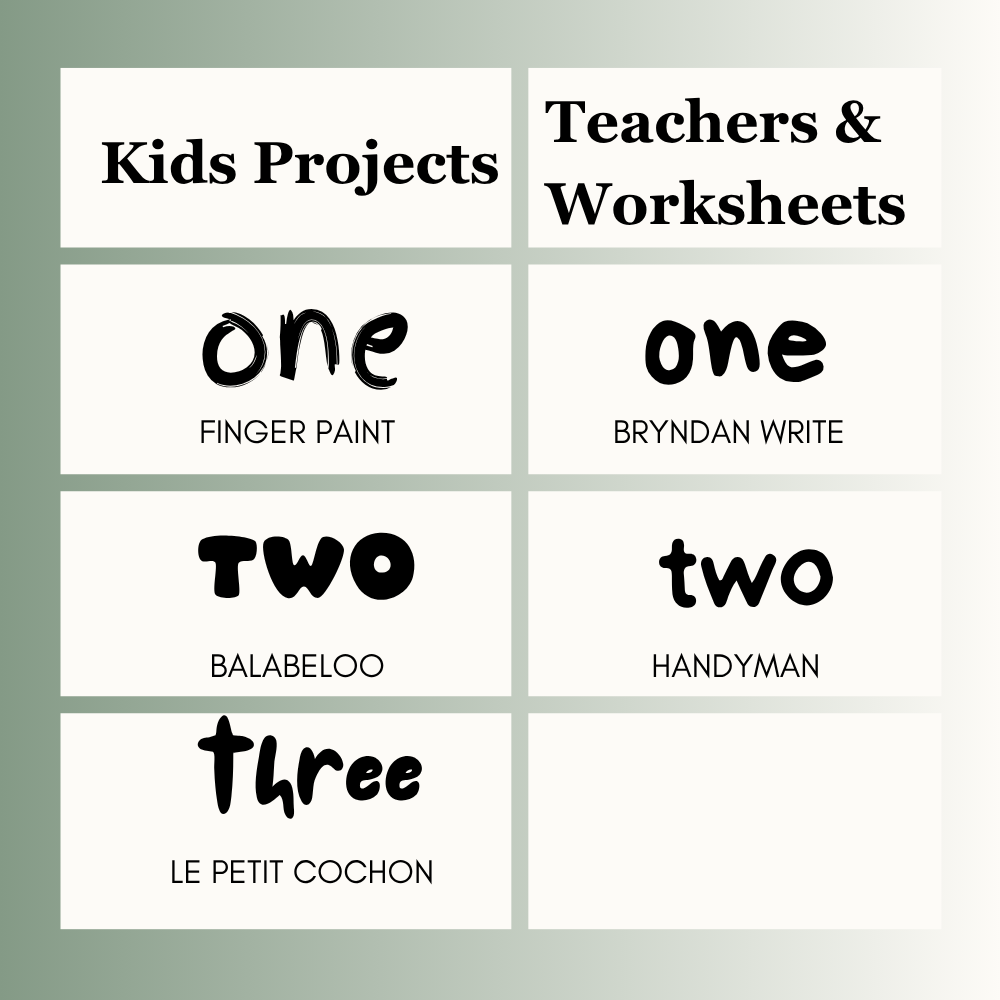
Kids Projects
- Finger Paint
- Balabeloo
- Le Petit Cochon
Teachers & Worksheets
- Bryndan Write
- Handyman
- Raily
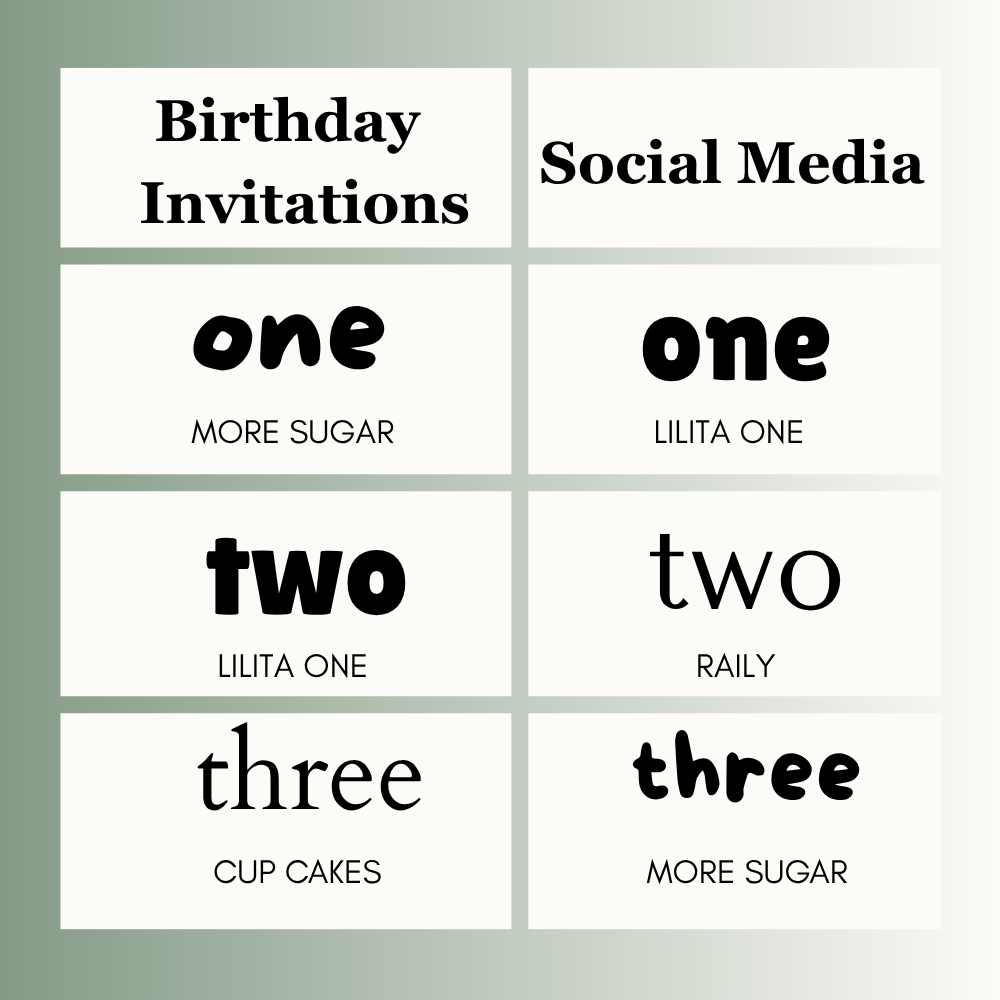
Birthday Invitations
- More Sugar
- Lilita One
- Cup Cakes
Social Media
- Lilita One
- Raily
- More Sugar
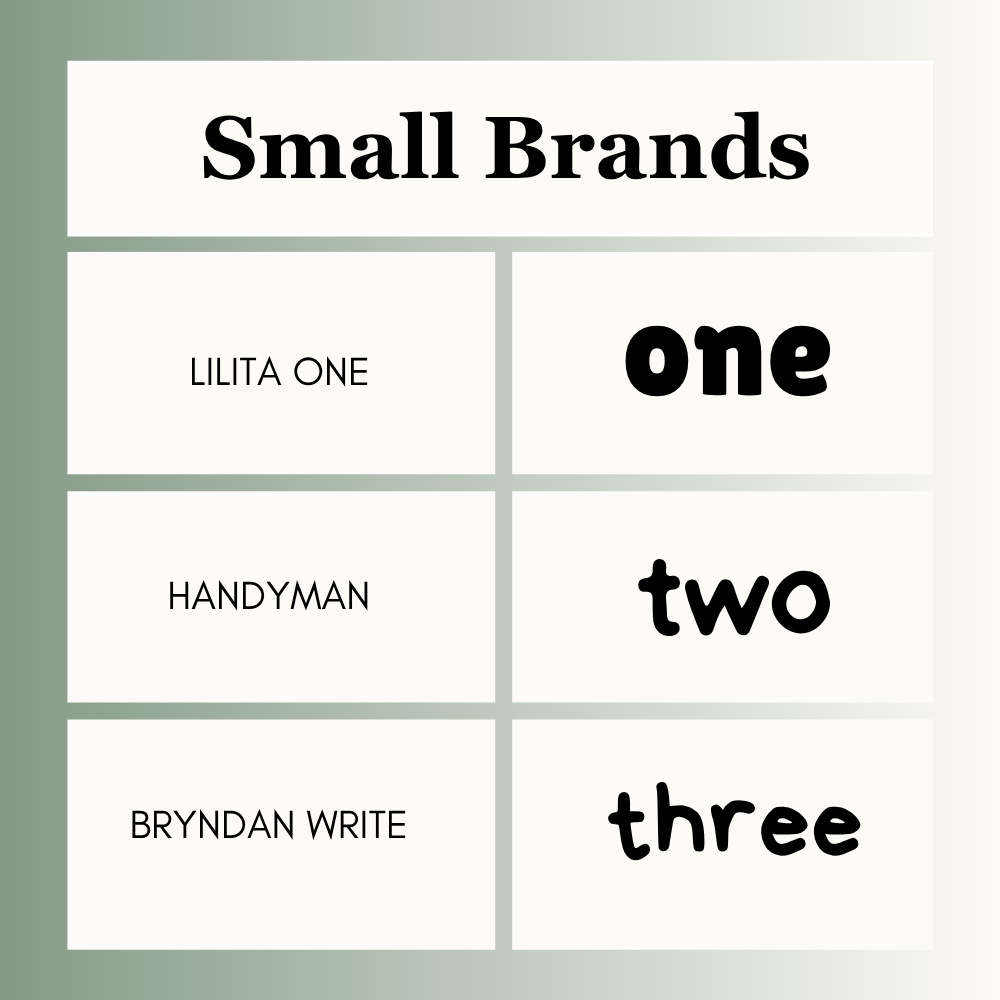
Small Brands
- Lilita One
- Handyman
- Bryndan Write
Best Canva Font Pairings
Use one playful font with one simple font.
- Lilita One + Open Sans
- More Sugar + Lato
- Handyman + Montserrat
- Bryndan Write + Poppins
This keeps the design fun and balanced.
How to Choose the Right Playful Font
1. Check the Purpose
Worksheet, invite, post, logo, or branding?
2. Think About Audience
Kids need different fonts than business customers.
3. Test Readability
Can people read it quickly?
4. Keep It Simple
Use one playful font and one clean font.
5. Stay Consistent
Use the same style across the design.
Common Mistakes to Avoid
- Using too many playful fonts
- Choosing hard-to-read styles
- Making text too small
- Using fun fonts for serious designs
- Ignoring spacing
- Overloading the design
Frequently Asked Questions
Lilita One, Raily, and Handyman are popular choices.
Finger Paint, Balabeloo, and Le Petit Cochon work well.
More Sugar, Lilita One, and Cup Cakes are strong options.
Yes. Many free playful fonts work very well.
Use two fonts in most designs. One playful and one simple.
Not always. Free fonts are often enough. Paid fonts may offer more variety.
Final Thoughts
The best playful fonts in Canva depend on your design, audience, and purpose. If I need bold text for social posts or branding, I usually start with Lilita One. For worksheets or kids content, Finger Paint and Bryndan Write work well. For invitations, More Sugar gives a soft and cheerful look. If I need something friendly but stronger, Handyman is a smart choice.
From real design experience, the strongest playful designs are not just fun. They are clear, balanced, and easy to understand. Choose a font that matches your goal, keep spacing clean, stay consistent, and always review the final design before posting, printing, or sharing.